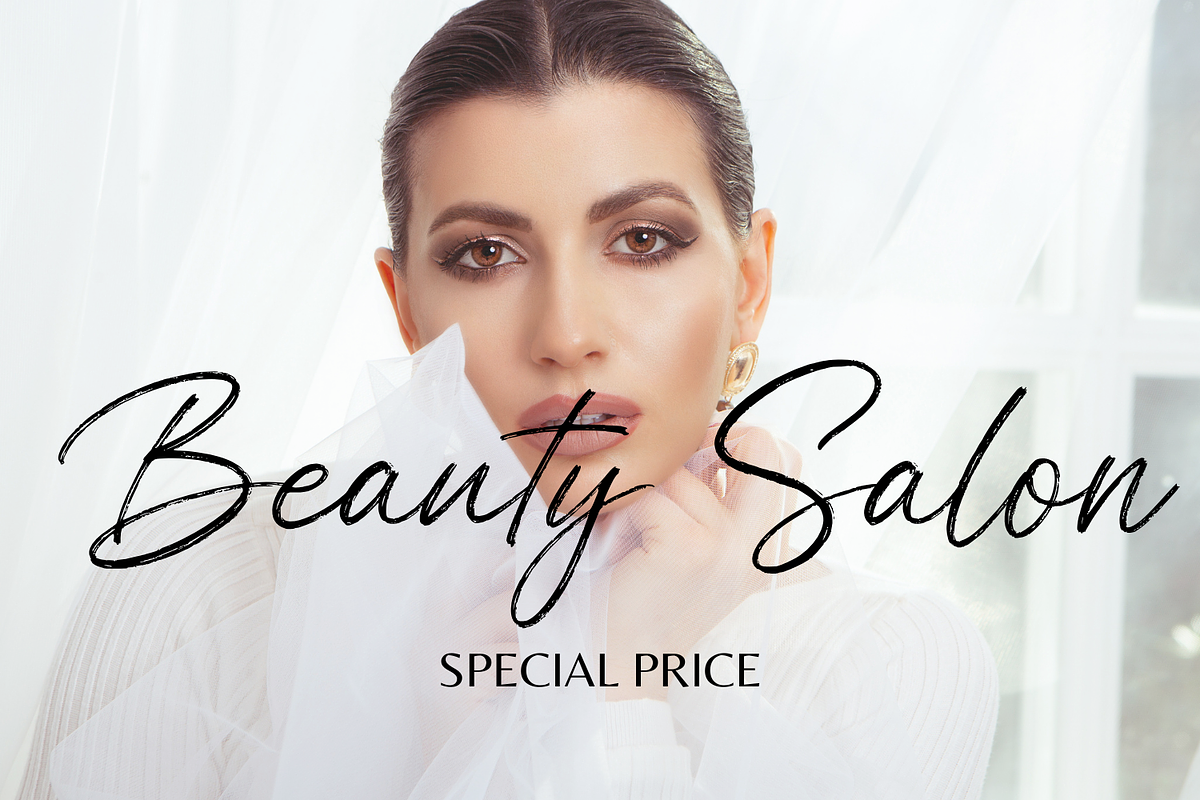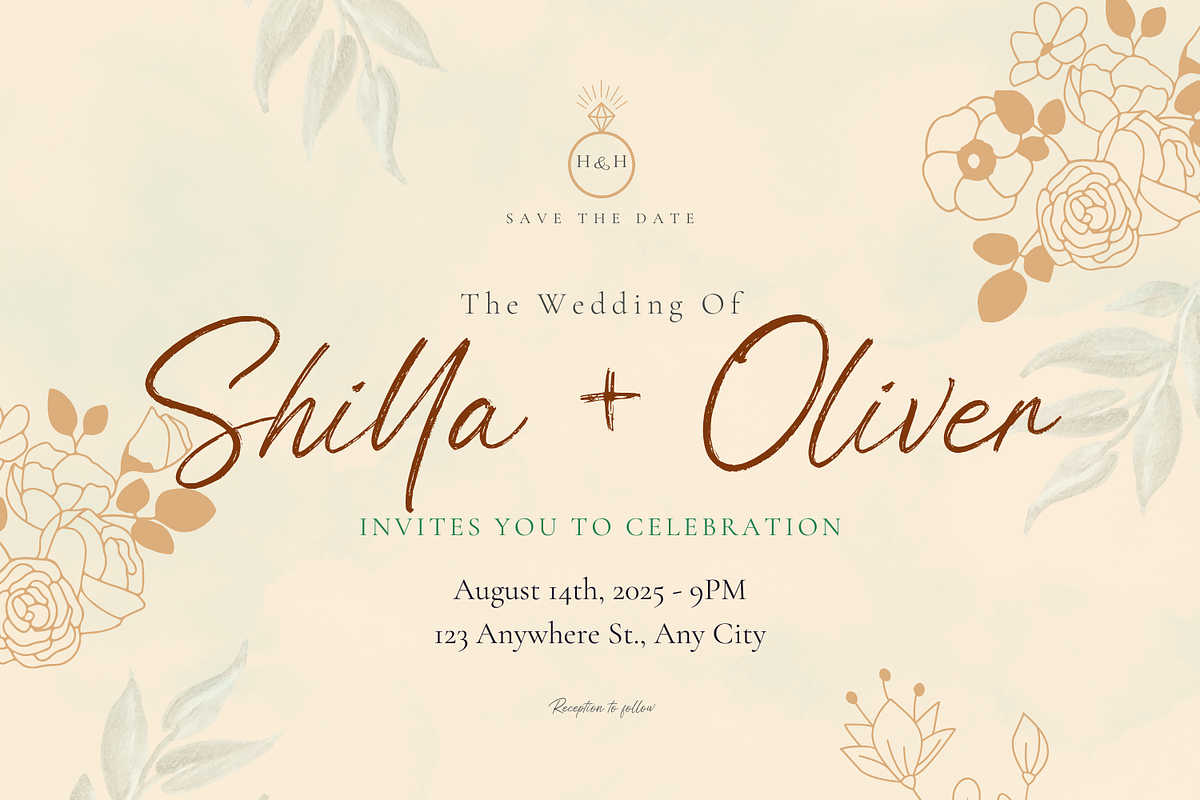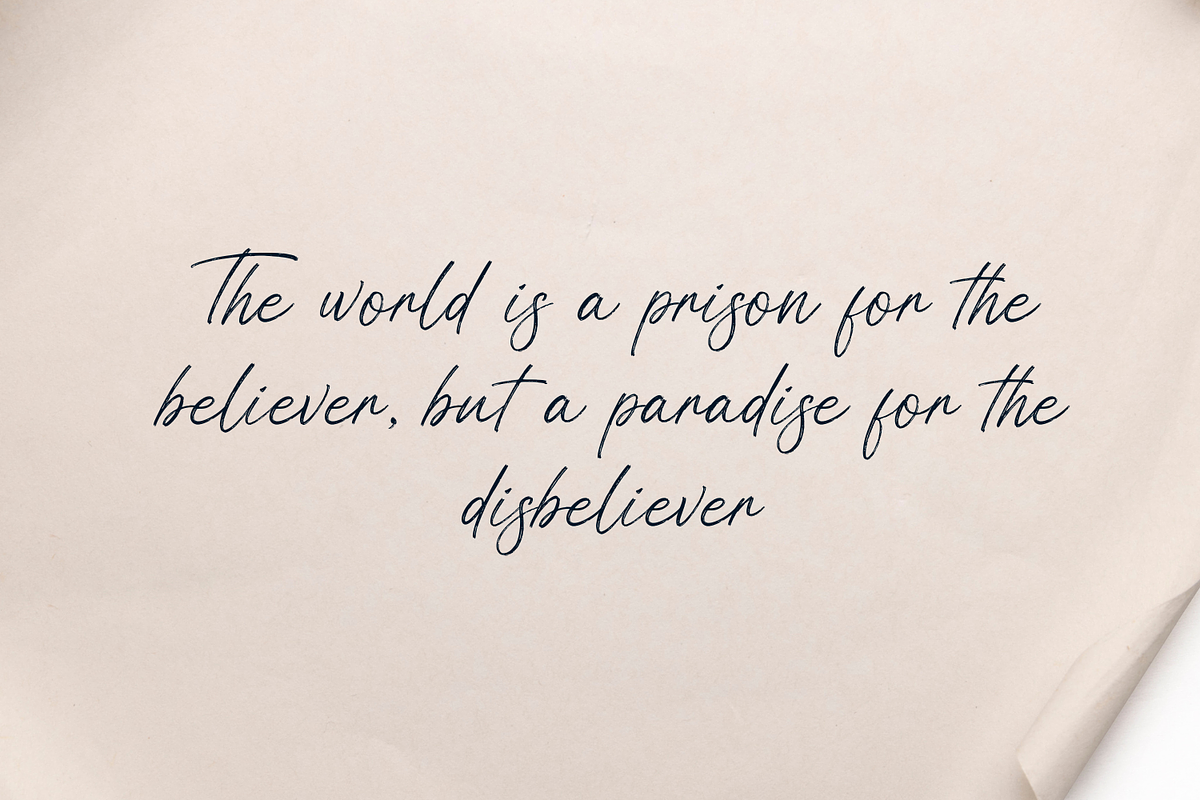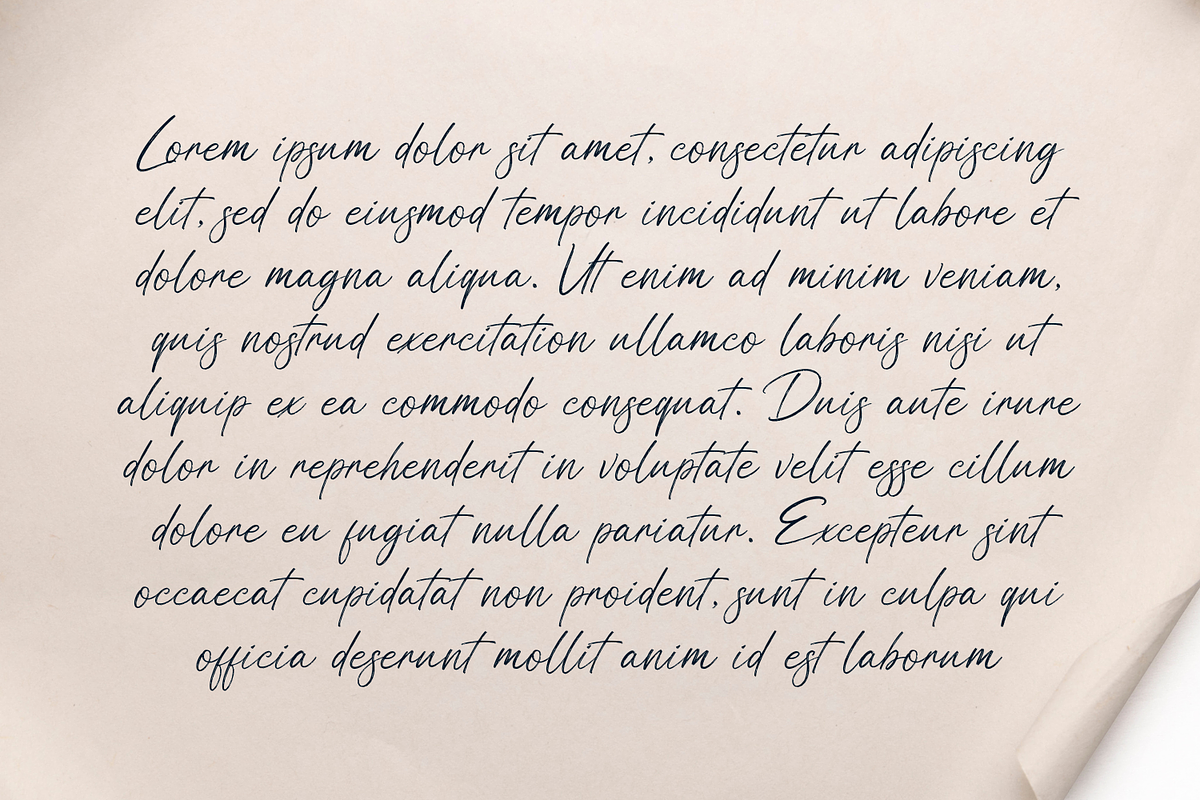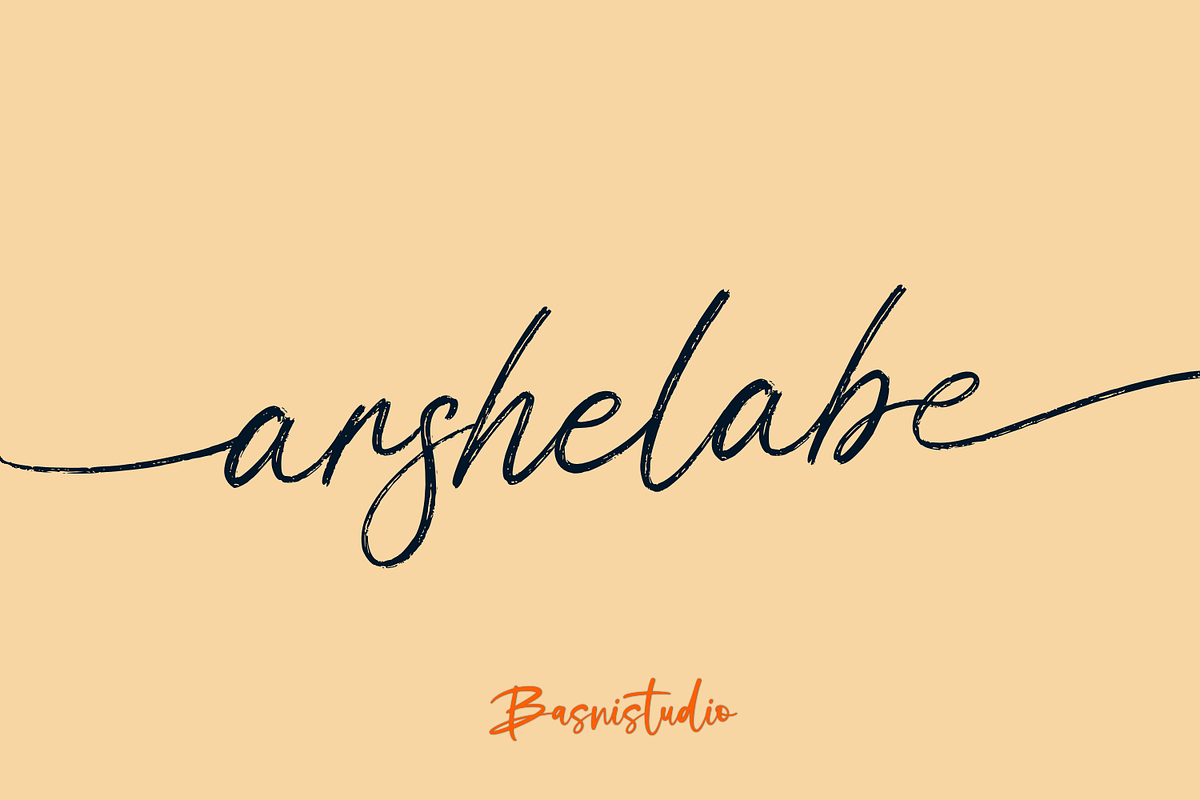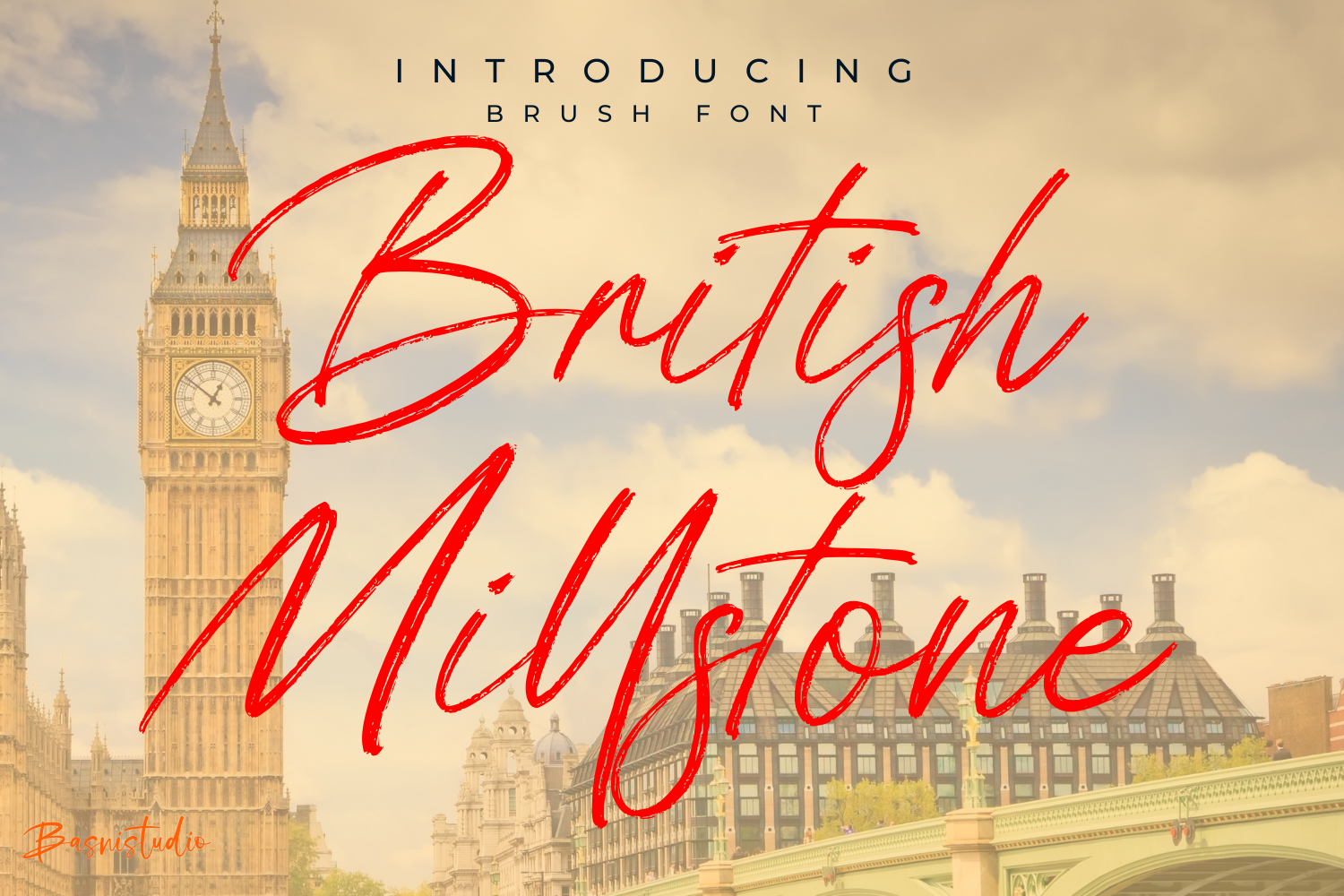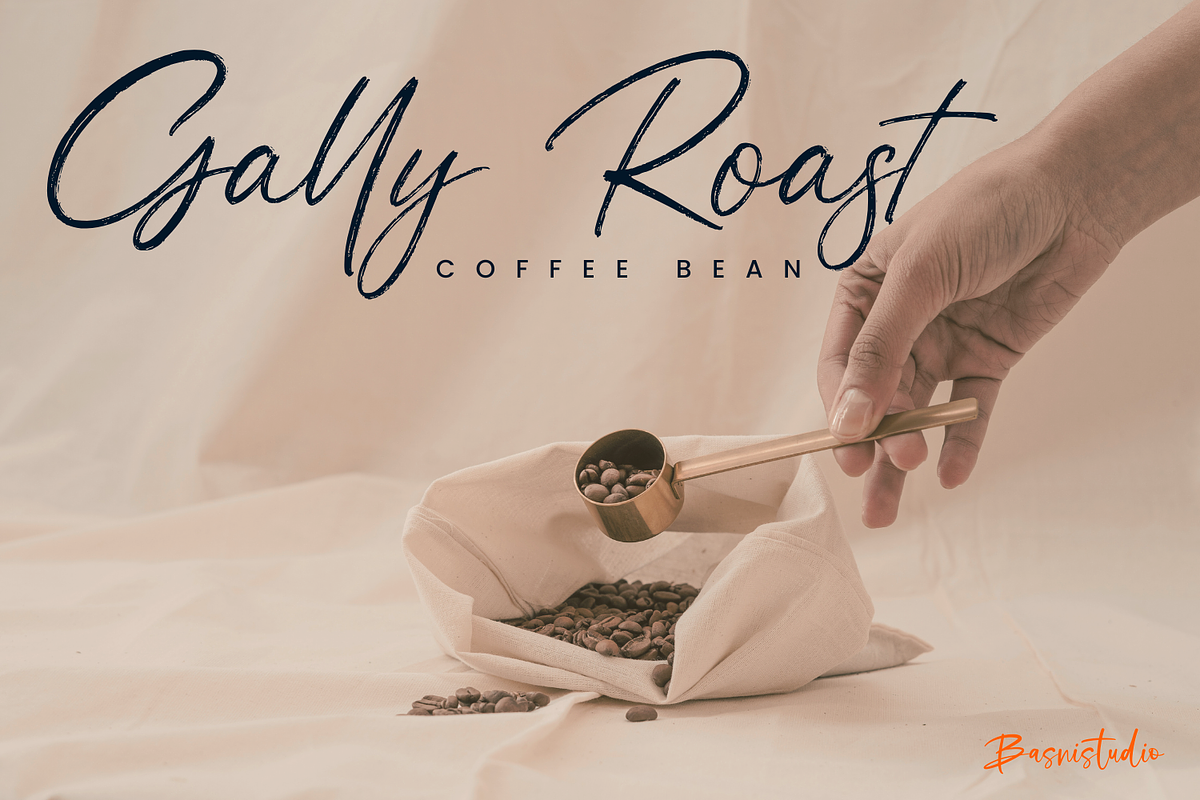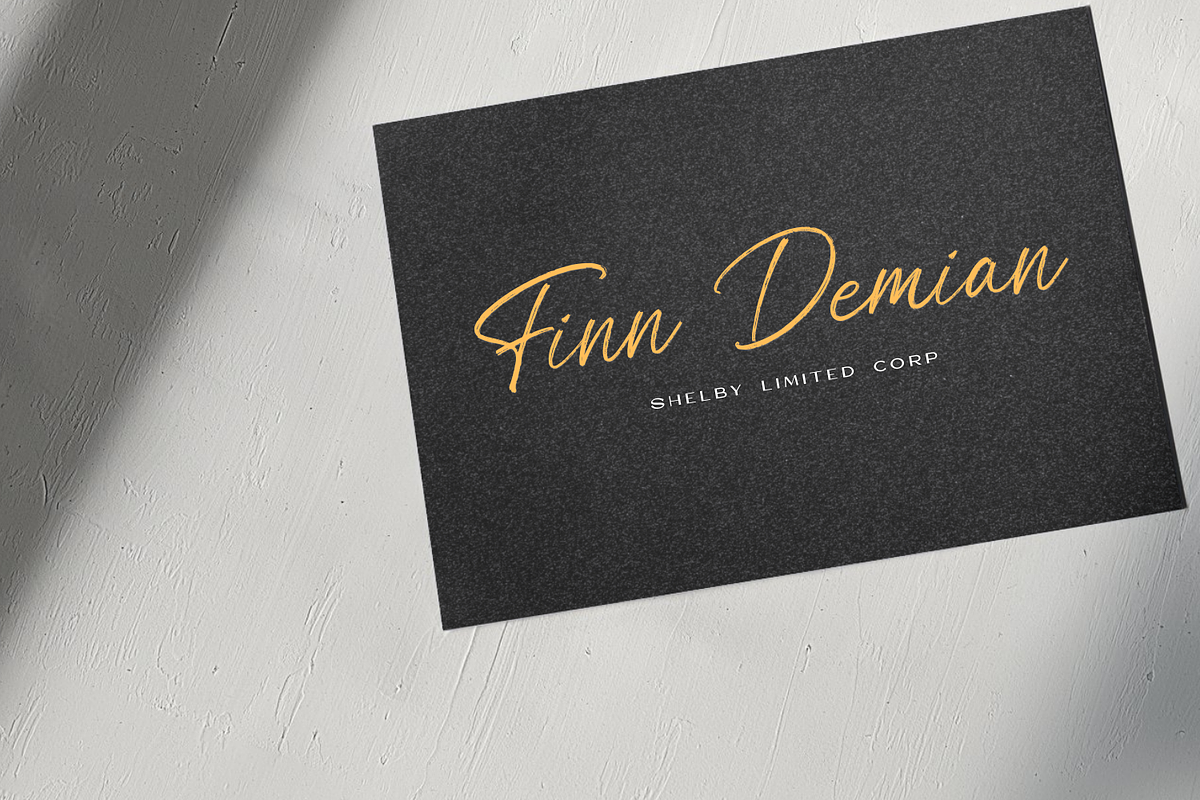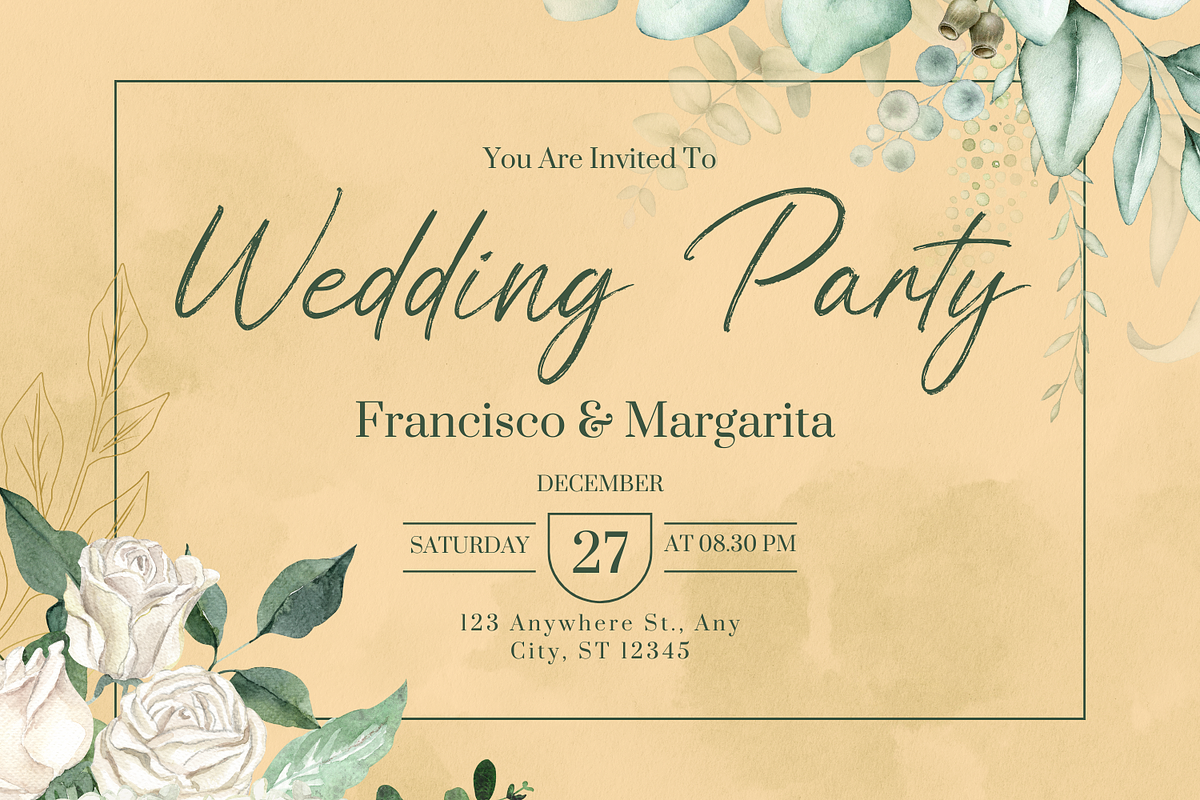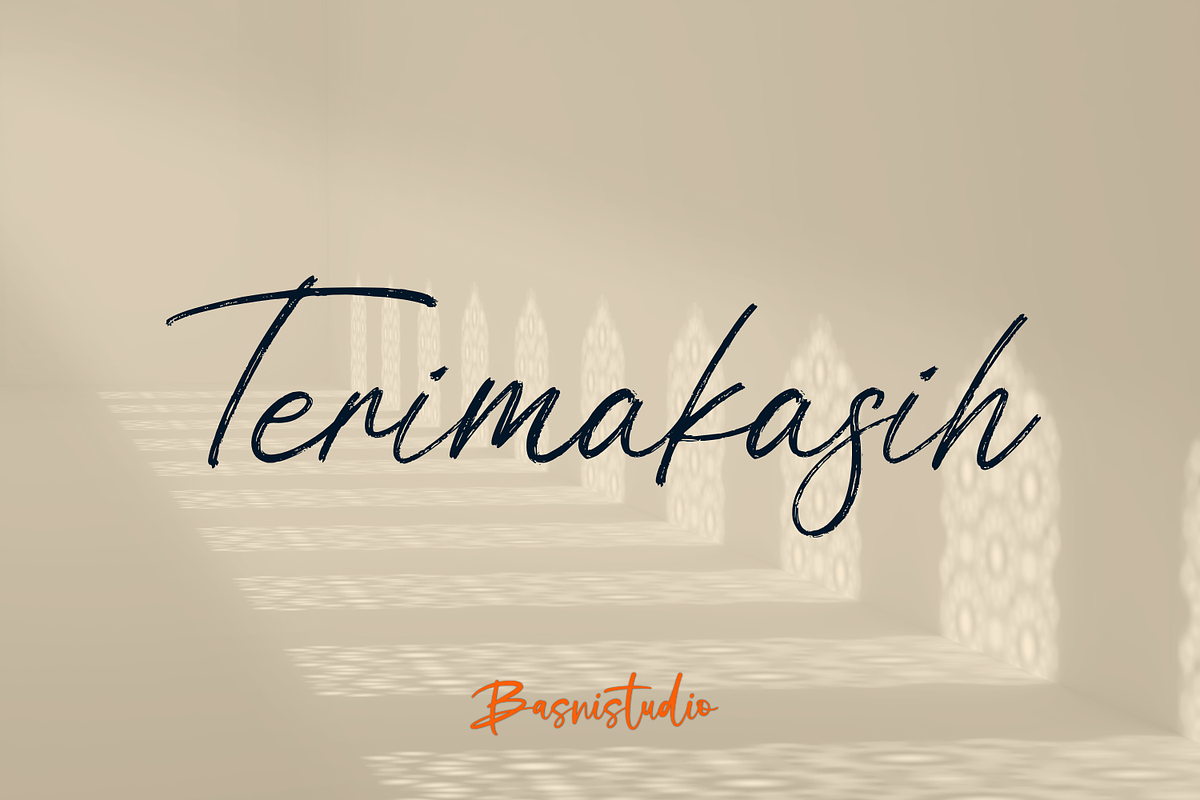
British Millstone Brush Font
Introducing British Millstone Brush Font
British Millstone Brush Font , made by Naturaly Brush & Authentic Style.
This Font is perfect for an magazine, clothes, quotes, and so much more. This font is PUA encoded, which means you can access all of the glyphs.